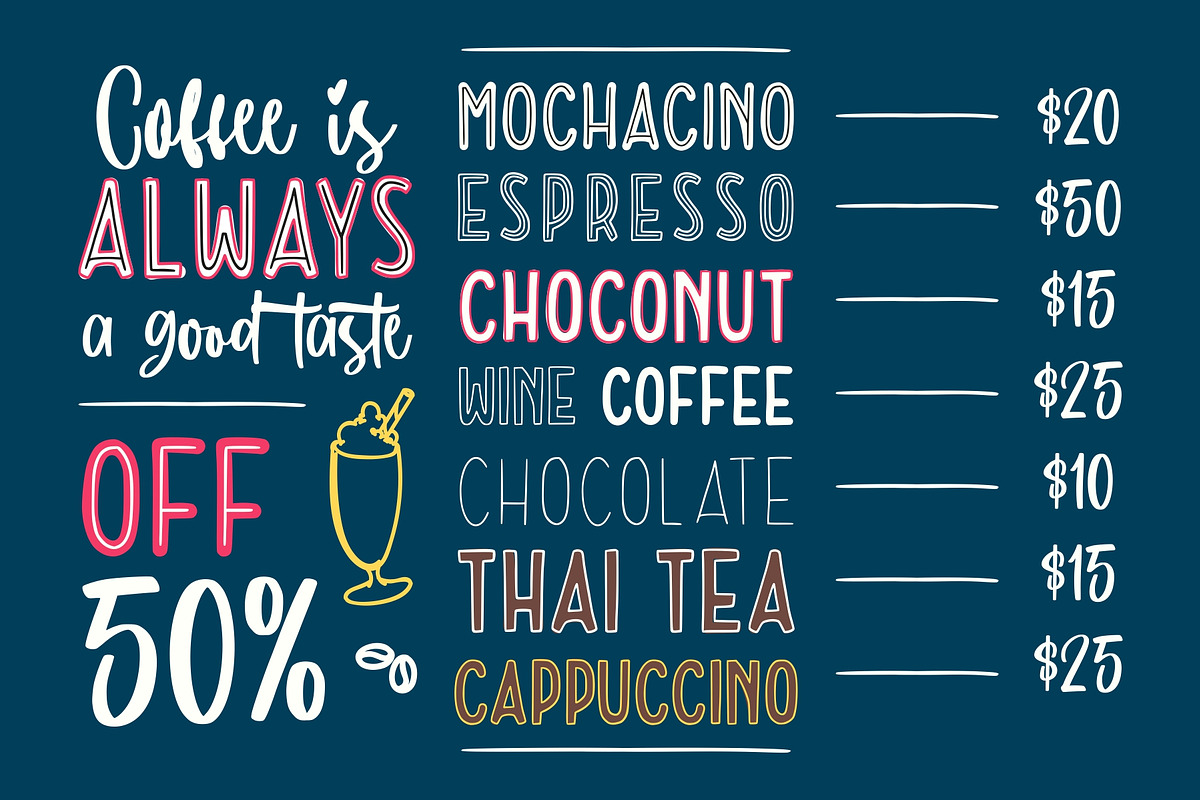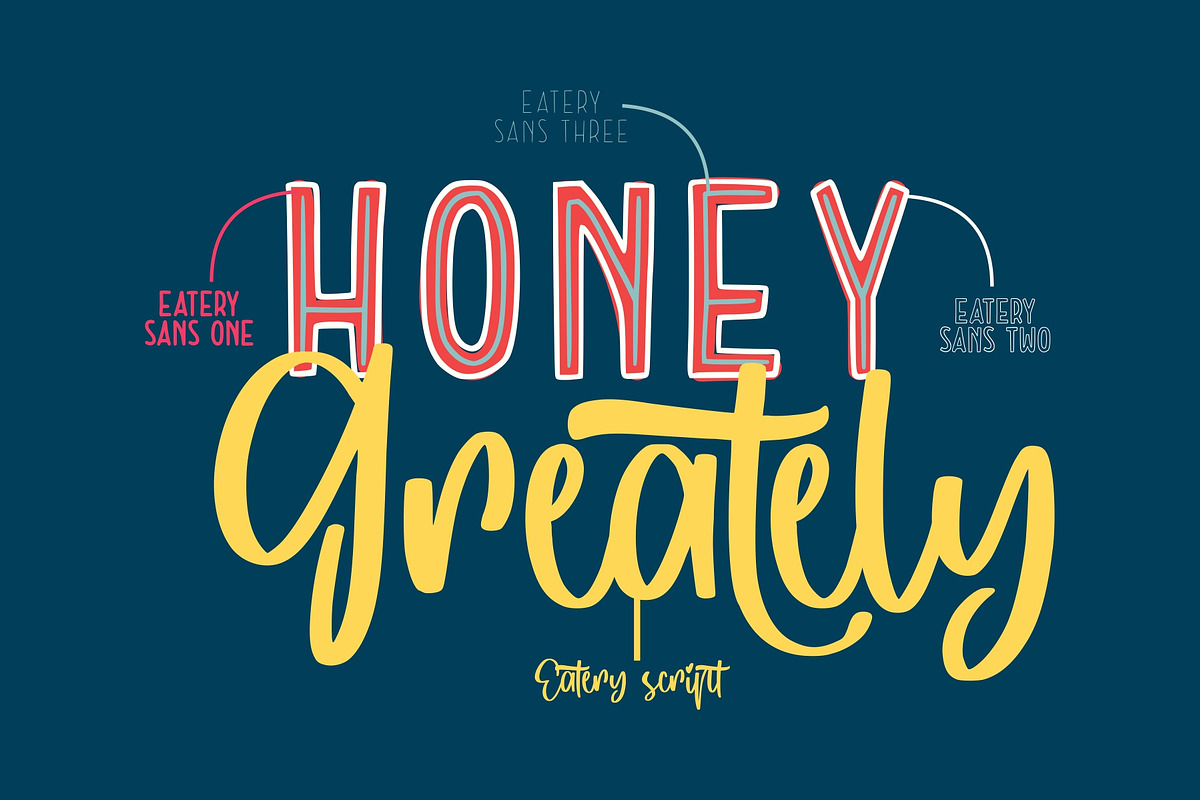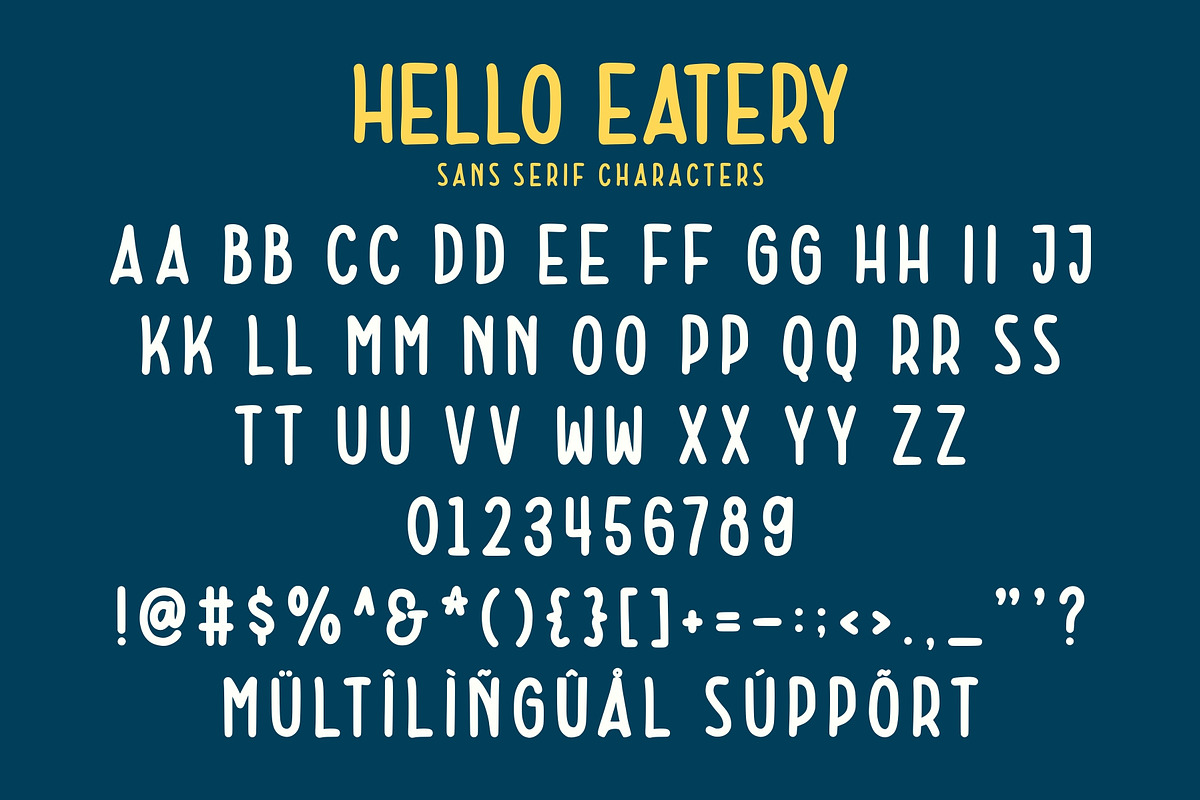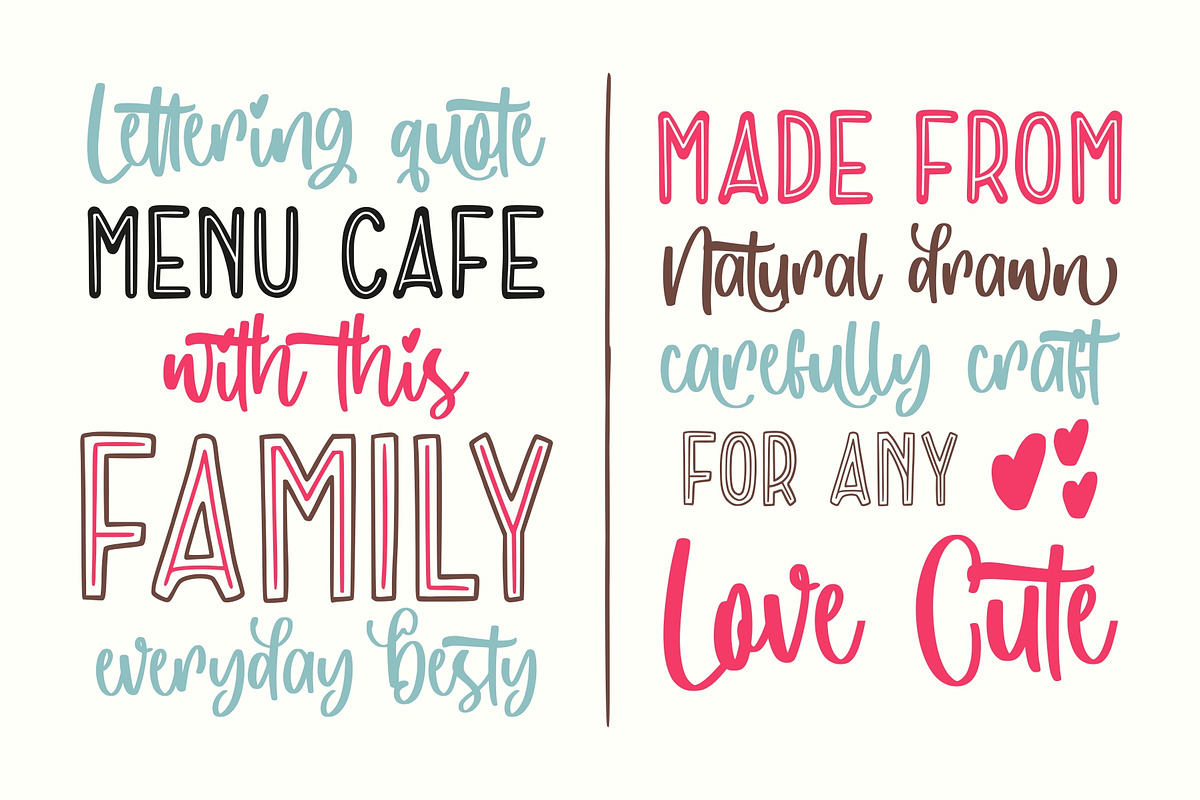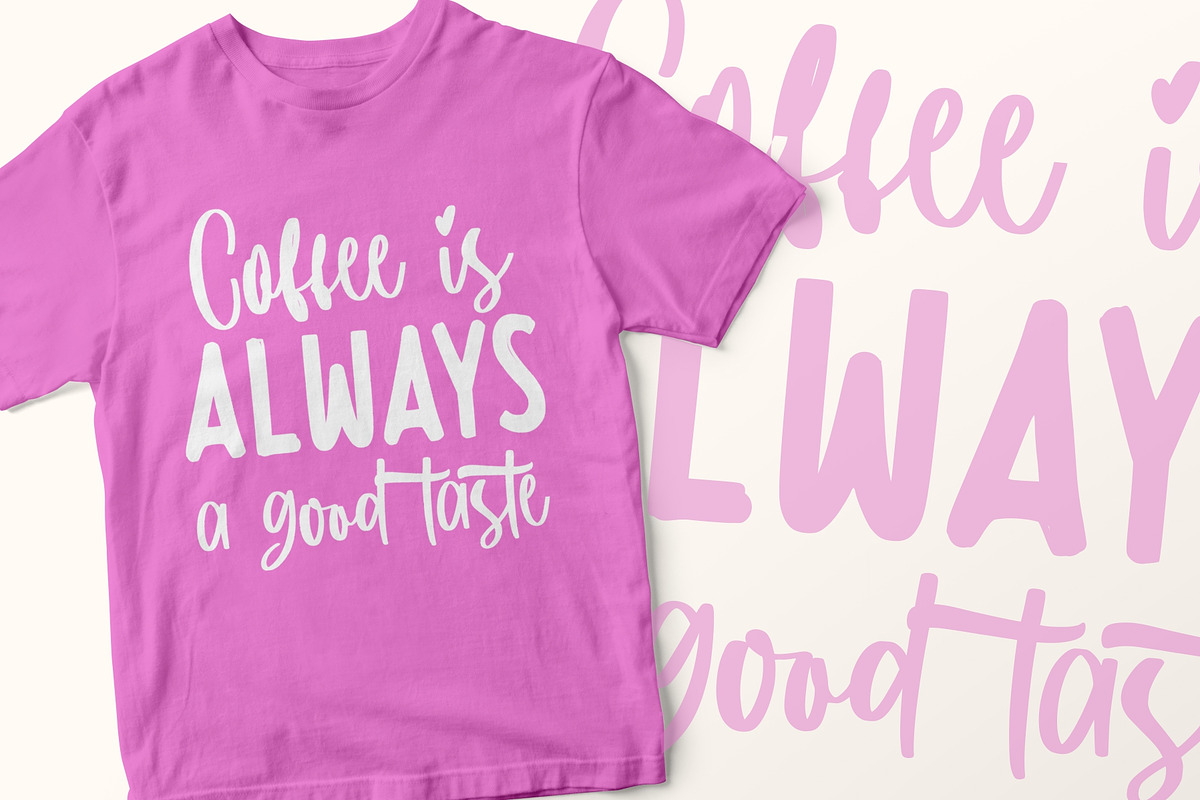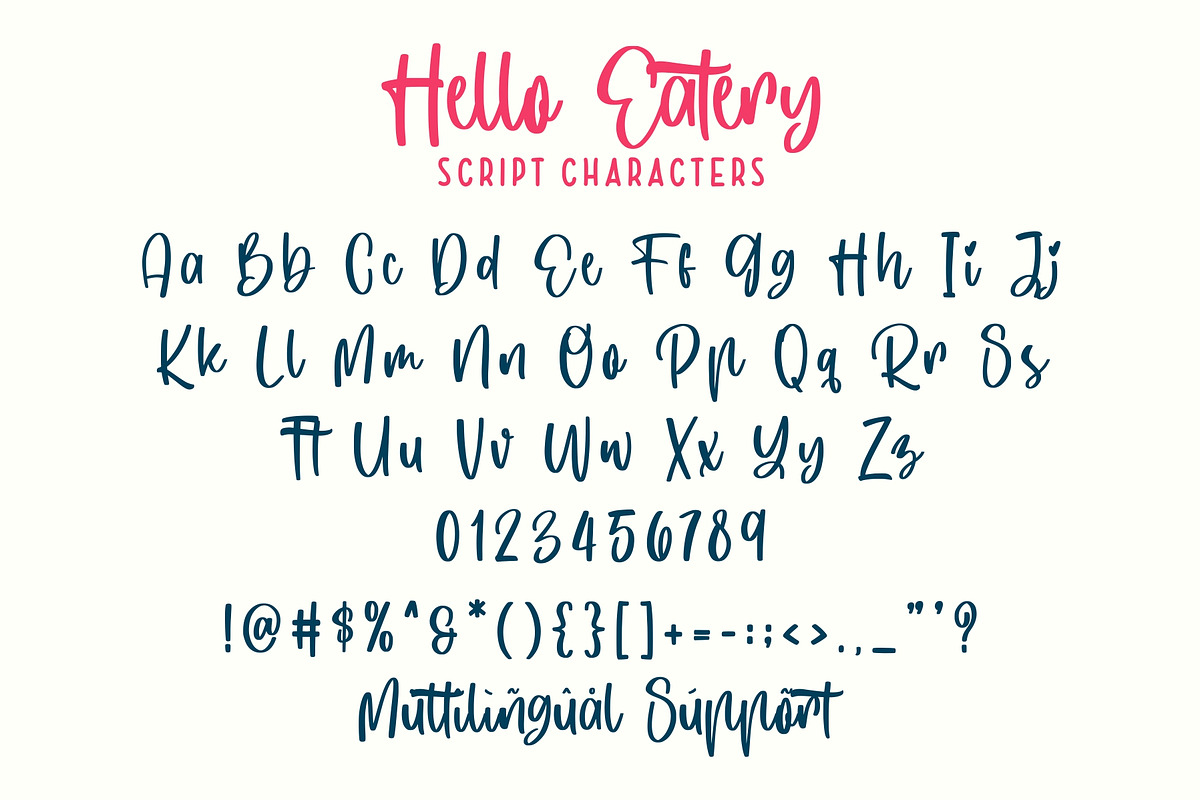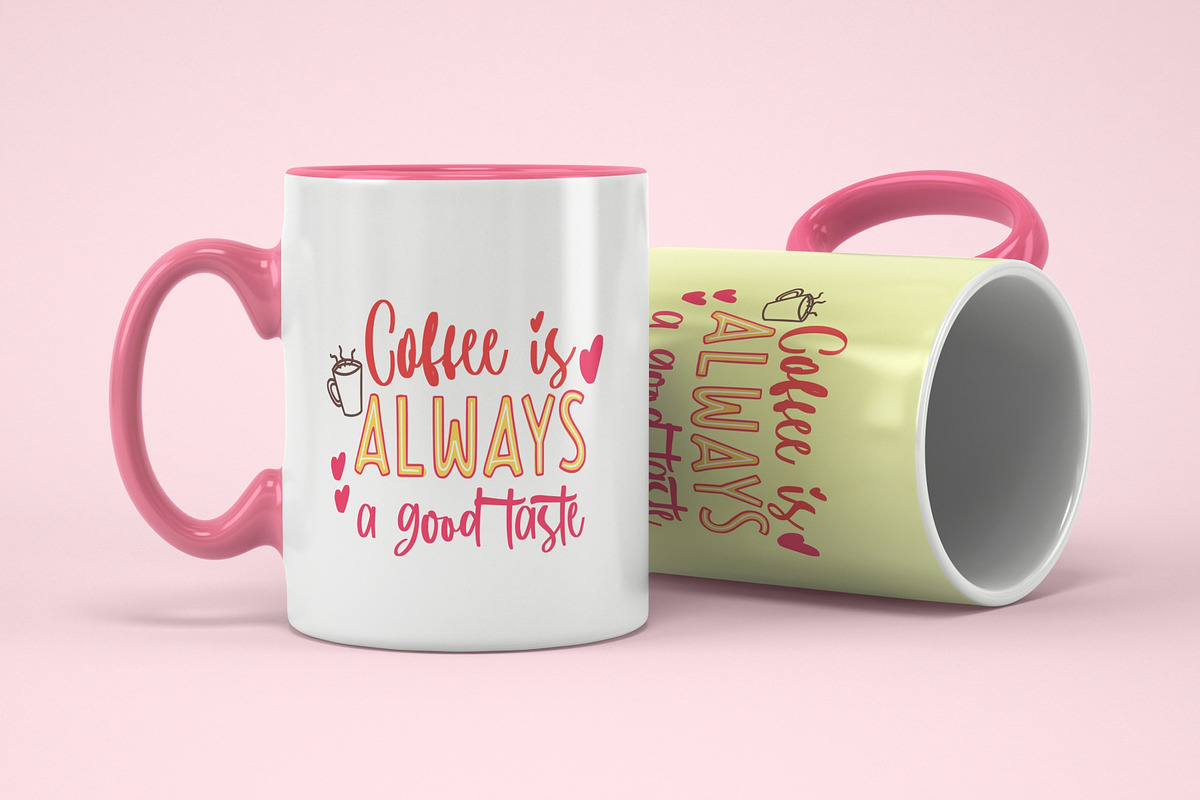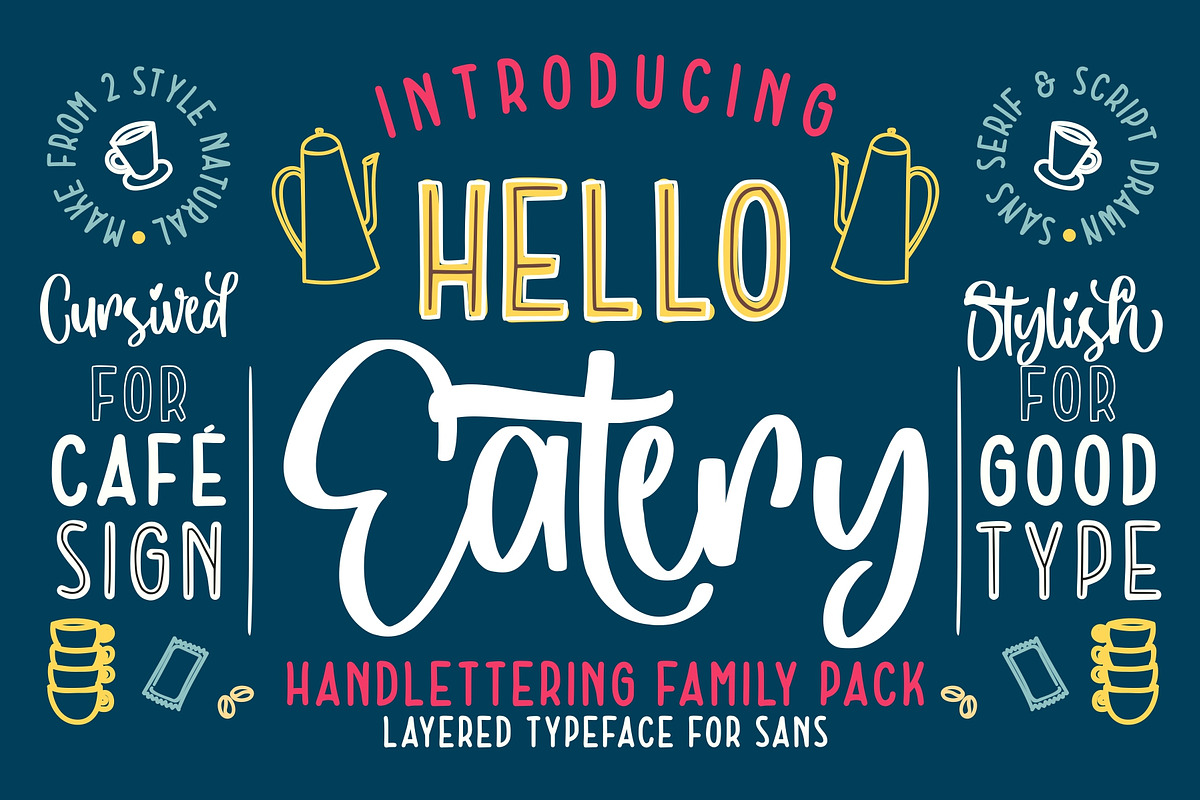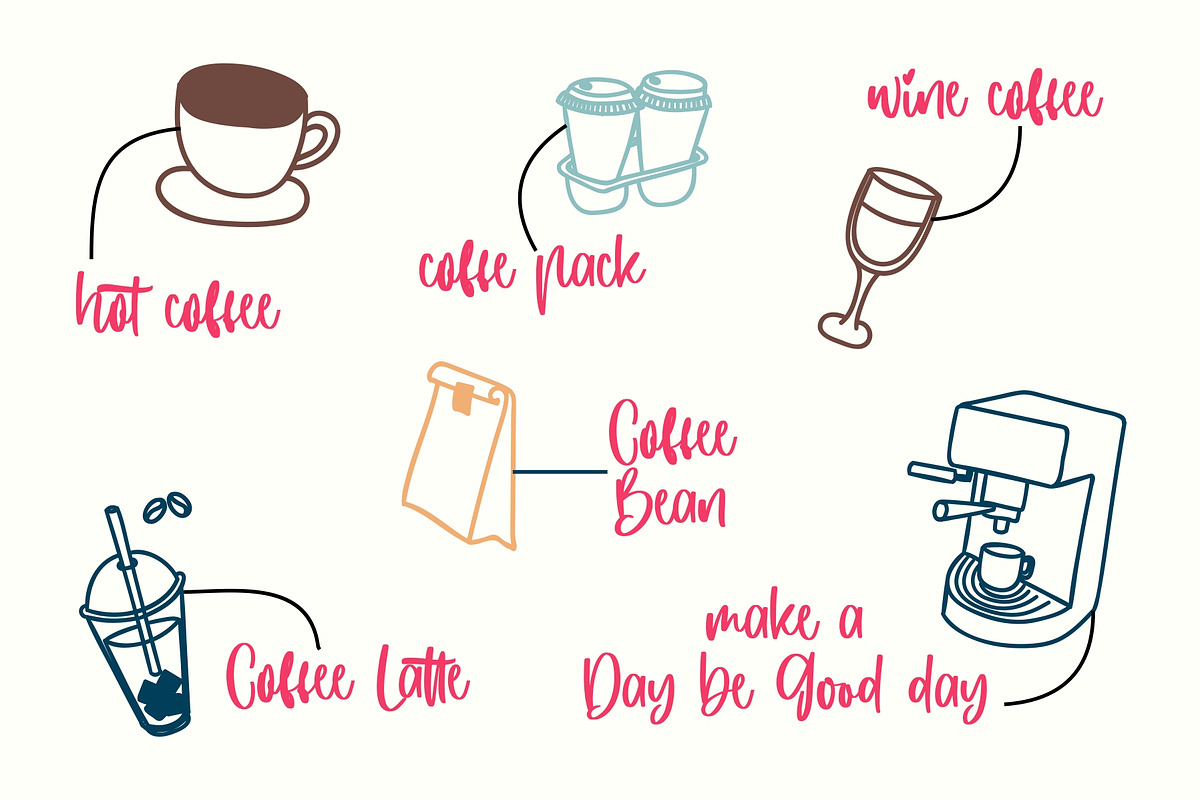
Hello Eatery - Handlettering Pack
Introducing Hello Eatery - Handlettering Pack
Hello Eatery combines attractive curves with a fresh handlettering starter pack; delivering a stylish script and sans serif which is guaranteed to add an eye-catching appeal to your logo designs, brand imagery, quotes, product packaging, merchandise & social media posts.
Hello Eatery Features :
- All Caps letters for Hello Eatery Sans Serif
- Hello Eatery One, Hello Eatery Two, Hello Eatery Three & Hello Eatery Script
- Opentype Features on Hello Eatery Script (SS01, SS02, SS03 and Ligatures)
- Support for 21 languages: Afrikaans Albanian Croatian Czech Danish Dutch English Estonian Finnish French German Hungarian Italian Norwegian Polish Portuguese Slovak Slovenian Spanisch Swedish Zulu